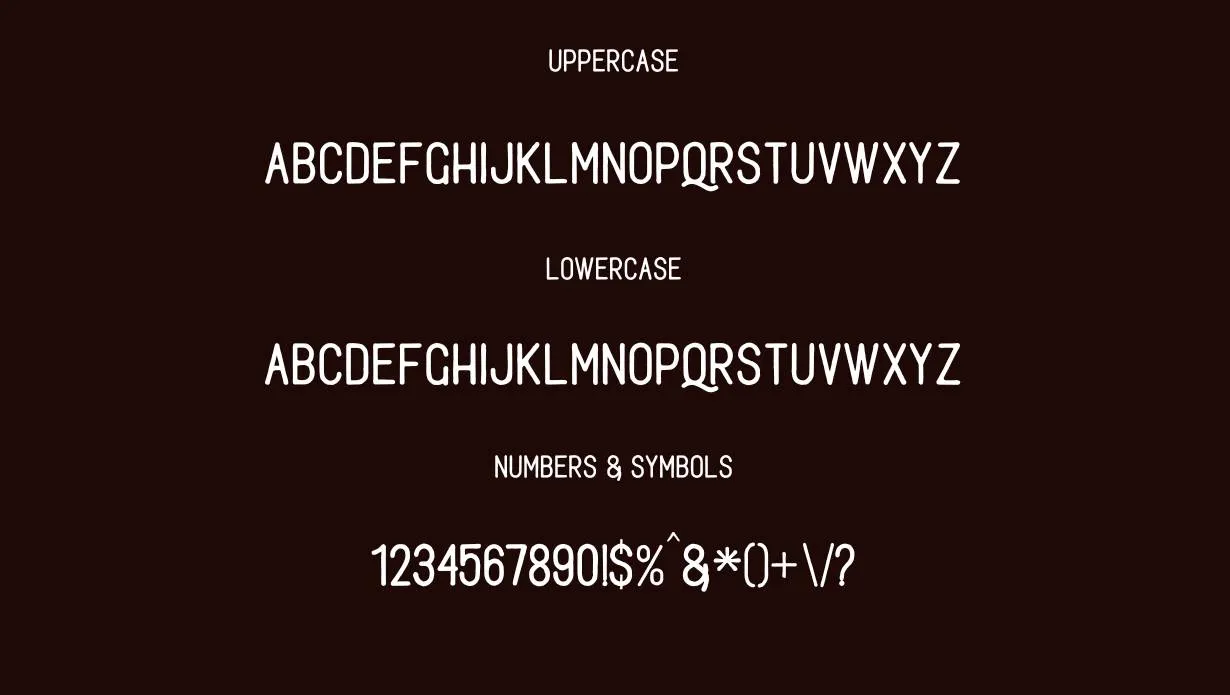
The Mustache Font has a quirky and playful style. Its fun and distinctive letters bring a sense of humor and creativity to any text. This font typically comes in different file formats, such as TTF and OTF, ensuring adaptability across various design programs.
| Name | Mustache Font |
| Designer | joelmaker |
It’s often seen in designs aiming for a light-hearted or whimsical vibe, adding a touch of fun and uniqueness to the writing.